What Font is Brat? Everything You Need to Know About the Brat Font Style
What is the Brat Font?
The Brat font took over pop culture thanks to Charli XCX's 2024 album "Brat", which features a jarring, rebellious, horizontally stretched font on its lime green cover. Technically, the Brat font is based on Arial Narrow, but heavily distorted. It has been stretched horizontally by up to 90%, includes optical kerning, and sometimes incorporates blur effects. This creates a minimalist, defiant, slightly nostalgic aesthetic that screams Y2K.
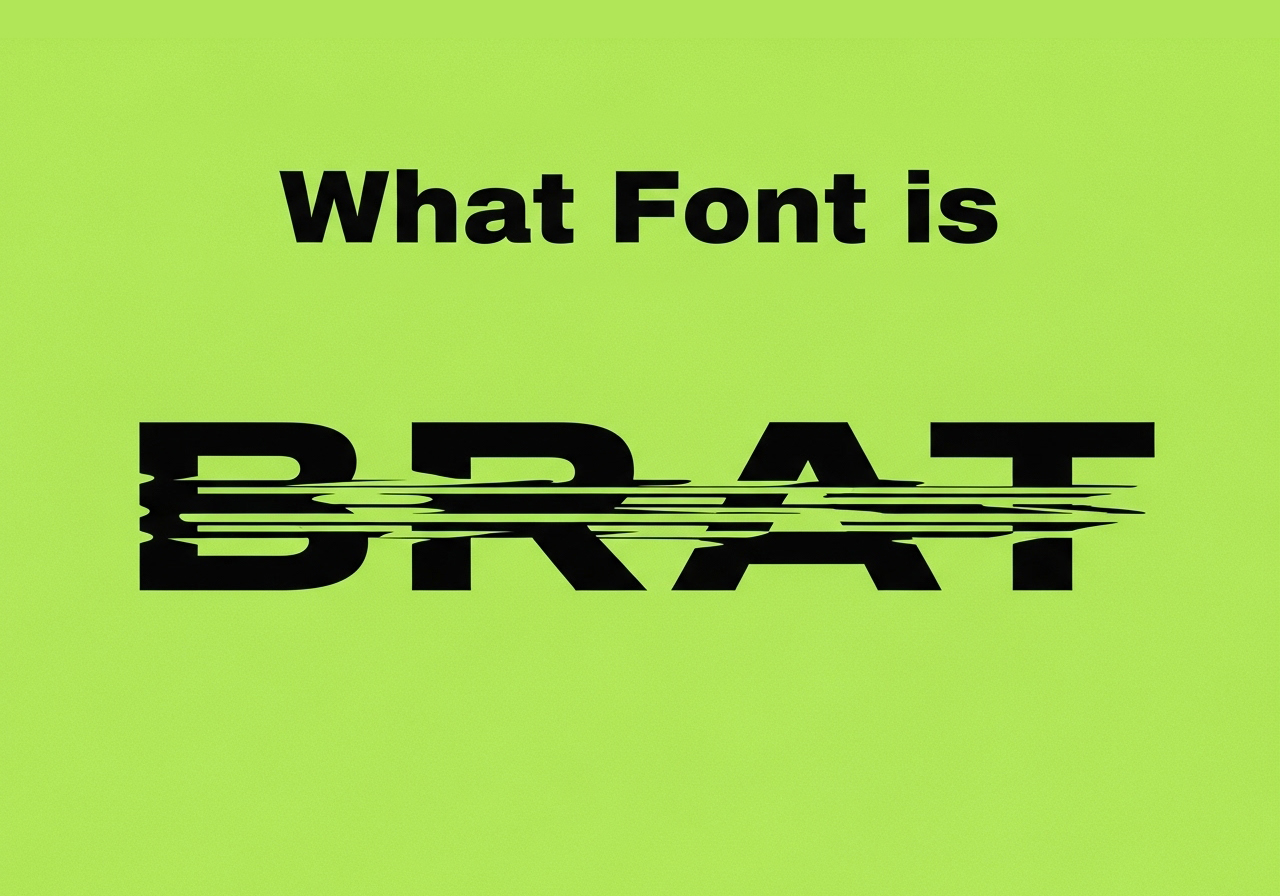
The Rise of the Brat Font: Charli XCX and Y2K Influence
This isn’t just about one pop star’s album art. The brat font has become a visual shorthand for chaotic energy, subversion, and Gen Z's playful approach to self-expression. Think of it as Helvetica’s rowdy teenage cousin who listens to hyperpop and eats aesthetic rules for breakfast.
Is Brat Font a Y2K Font?
Sort of. While not originally from the early 2000s, the Brat font shares many Y2K design values: saturated neon colors, distortion, DIY aesthetics, and that hard-to-ignore, mildly annoying boldness. It also pairs well with hot pink, acid green, and glitch effects.
Brat Font Features and Visual DNA
Stretching the Limits
The core trait of any brat font design is distortion. It should feel wrong—but in a good way. Stretch it until it breaks symmetry, until your graphic design teacher cries. Brat fonts demand attention.
Blur, Kerning, and Edge Play
Some interpretations of the Brat font include soft blur edges and messy kerning that feels almost broken. This adds to the overall rebellious energy—just like the music it represents.
Where to Use a Brat Font?
Best Design Use Cases
- Event Posters: Music events, underground parties, warehouse raves.
- Social Media: Edgy carousel posts, meme-style banners.
- Personal Branding: Artists, performers, or influencers wanting to flex a non-mainstream identity.
- Zines and Moodboards: Perfect for Gen Z creators.
What Voice Matches a Brat Font?
Sassy, playful, slightly sarcastic. A brat font doesn't say "please." It says "watch me." Pair it with Lenny Faces like ლ(◔ ε ◔ლ) or text in all caps. Speaking of which…
Brat Font: Hot Trend or Tacky Throwback?
The brat font has invited love, mockery, and memes. Some think it’s trashy. Others find it iconic. In true Y2K spirit, it blurs the line between irony and sincerity. But one thing’s for sure: it’s unforgettable.
Is Brat Font Non-Mainstream?
Absolutely. But that’s the point. Brat fonts reject boring. They thrive on chaos and color. They’re the ultimate rebellion against clean minimalism.
Final Thoughts
Whether you're a designer or chaos gremlin, one thing’s clear: the brat font is here to stay.